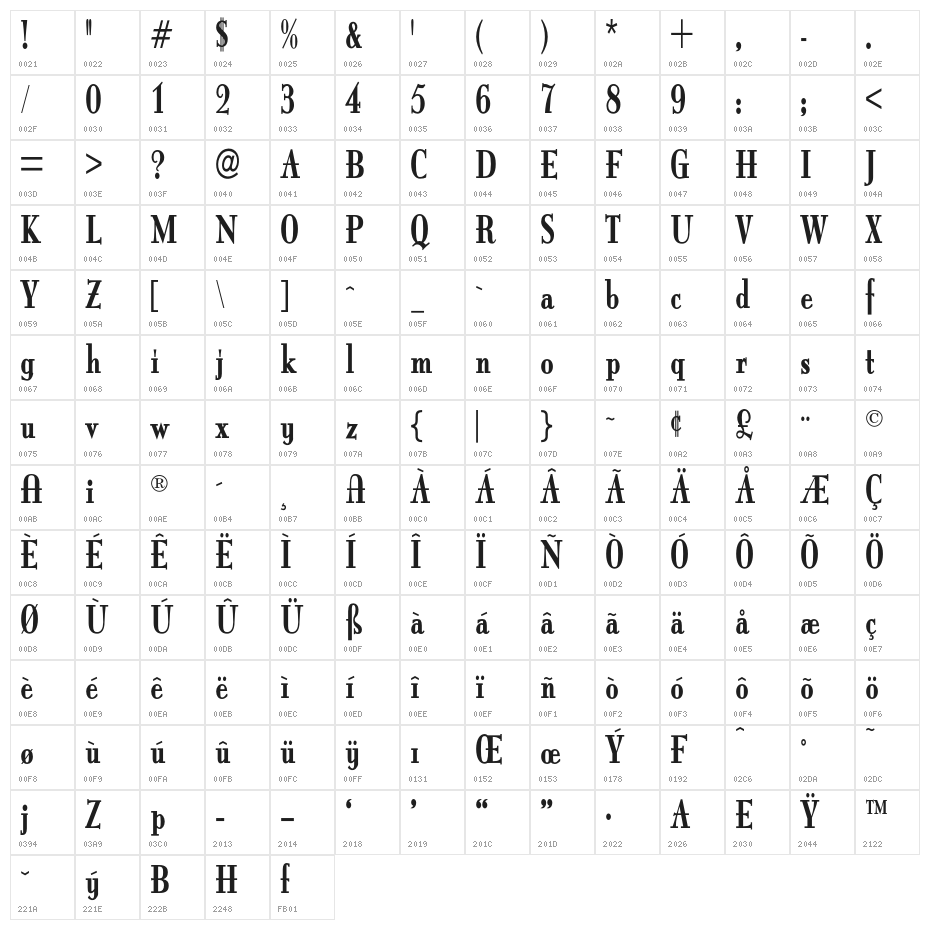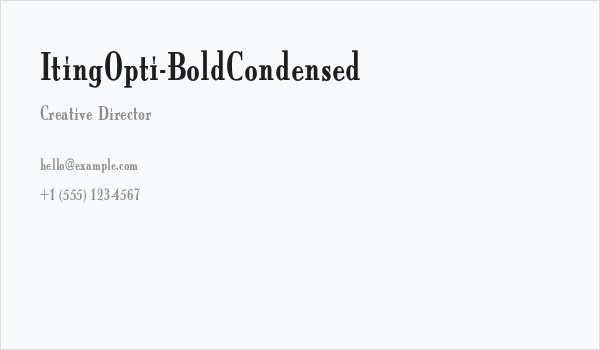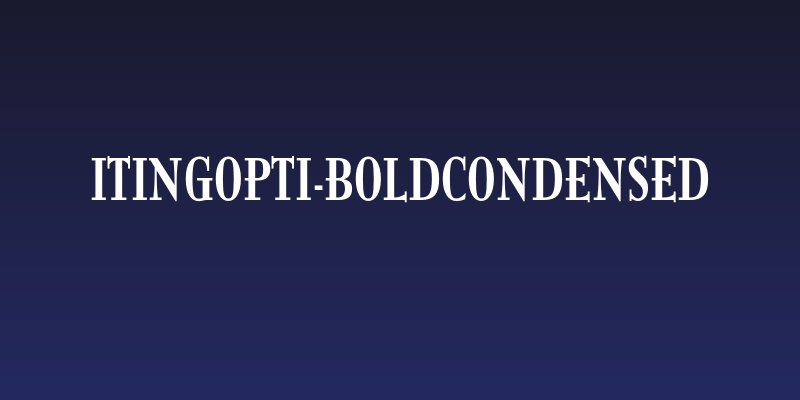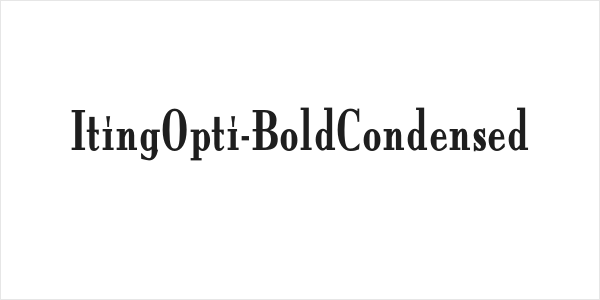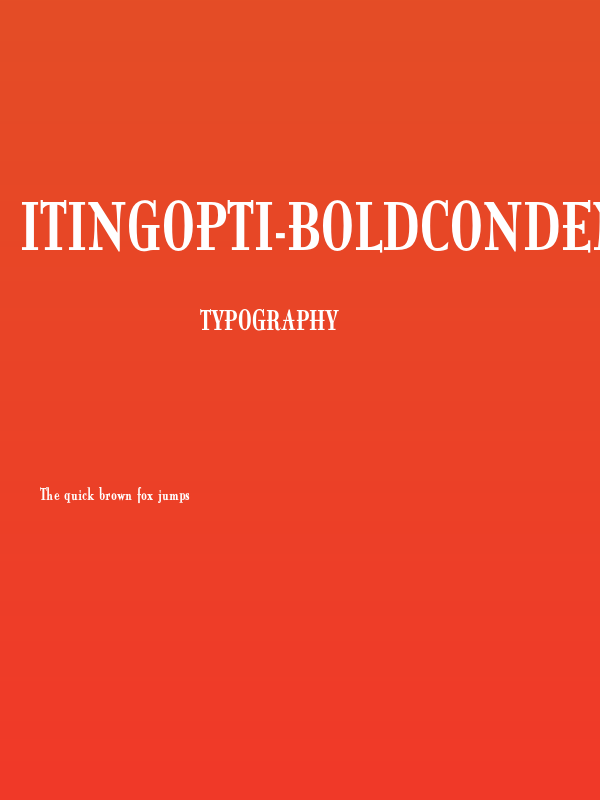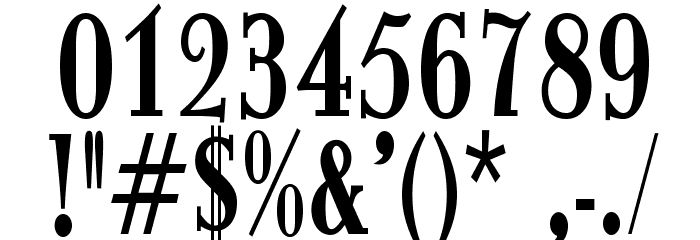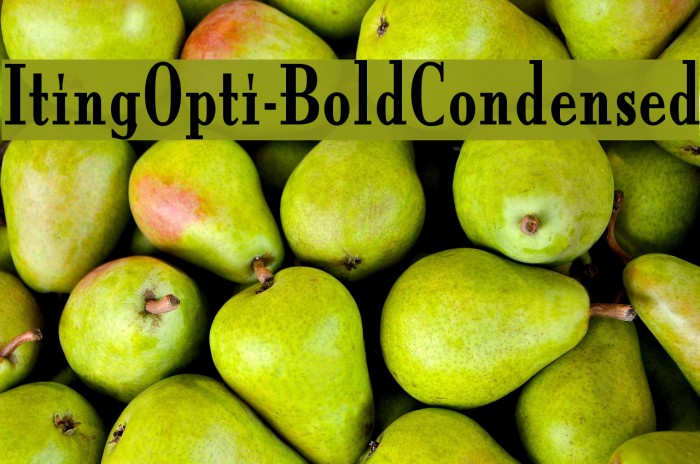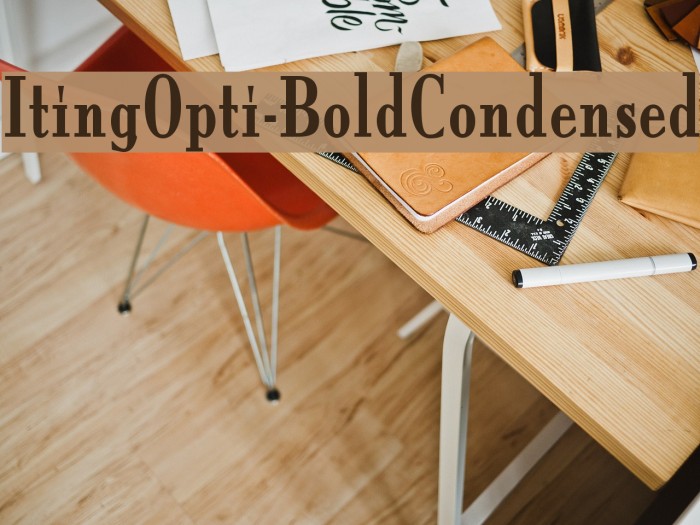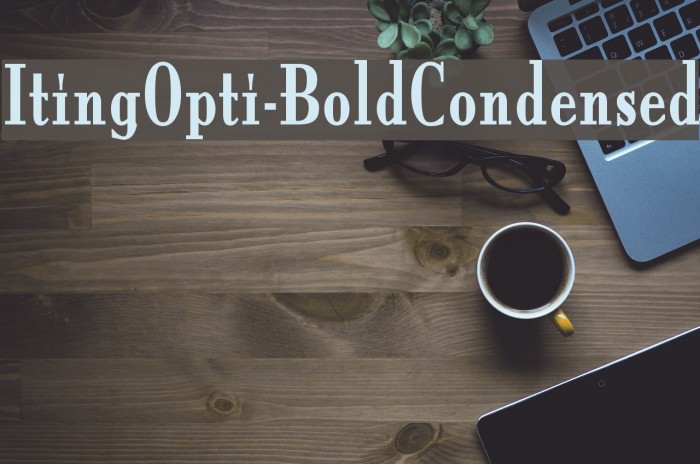
ItingOpti-BoldCondensed Font
ItingOpti-BoldCondensed Description
This font exhibits a bold and condensed style, characterized by its strong, impactful presence. The uppercase letters are tall and narrow, with a slight curvature that adds a touch of elegance. The lowercase letters maintain a consistent height, complementing the uppercase with their rounded forms. Numbers are equally bold, ensuring readability and uniformity. The special characters are distinct and well-defined, adding versatility to the font. Overall, the font's boldness and condensed nature make it ideal for attention-grabbing designs.
| Proposed Projects | Ideal for headlines, posters, and branding materials where a strong visual impact is needed. |